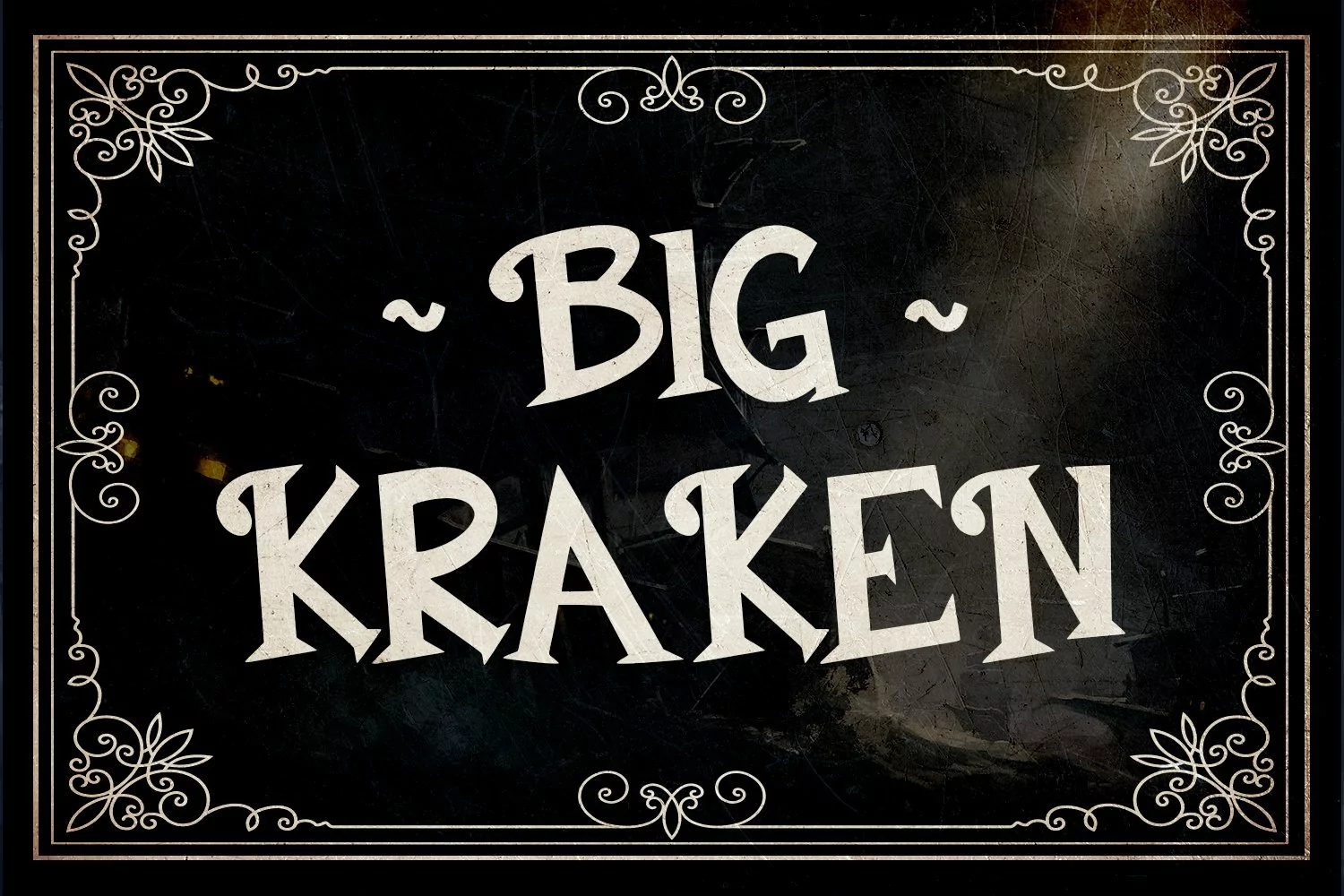
Haunted Ocean - Pirate Fantasy Typeface Font that contain lowercase, uppercase, symbol, and also support multi language. There’s a lot ligatures in this font. This Font also comes with ligatures, alternates and many more. this font suitable for fashion, branding, catalog and other design what you want.
Haunted Ocean